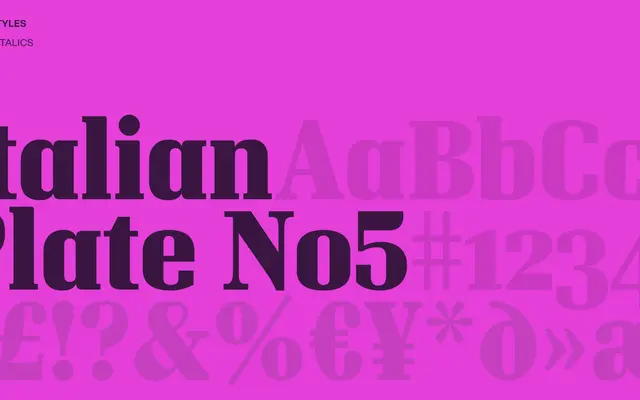
Italian Plate No5
A grotesque sans from Playtype drawing on Italian plate lettering traditions for editorial and identity use.
Italian Plate No5 sits within Playtype's library as a grotesque with roots in early Italian sign and plate lettering. The page copy is sparse, offering little technical detail about weights or language support, but the name signals a deliberate reference to a specific historical vernacular. It reads as a typeface suited to editorial, branding and packaging contexts where a European grotesque sensibility is wanted.
The name and visual cues from the page suggest an Italian-influenced grotesque, a category with roots in early 20th-century European sans-serif type design.